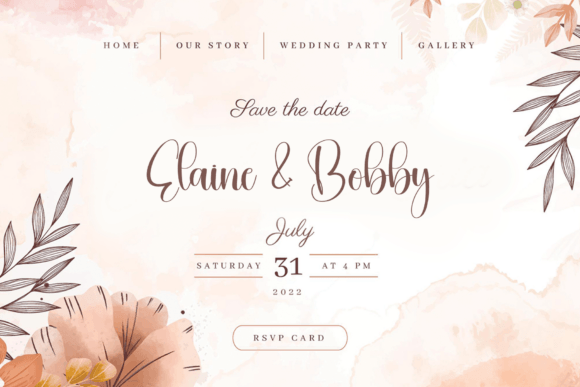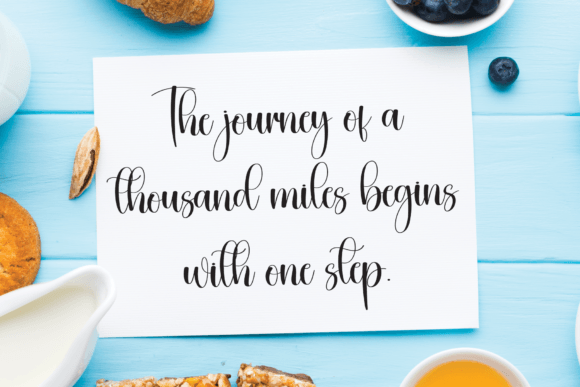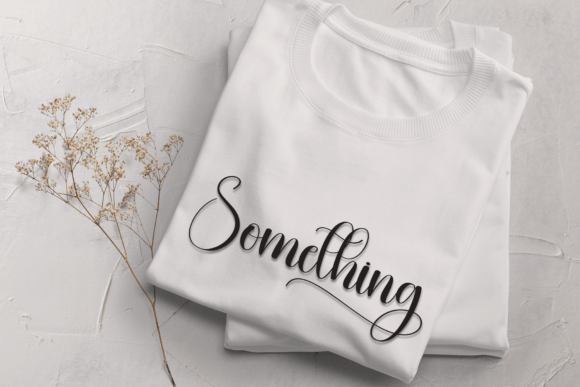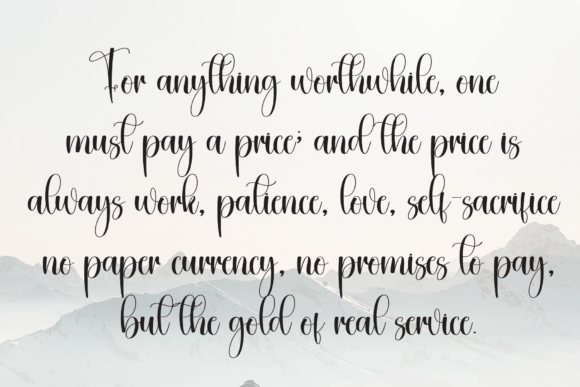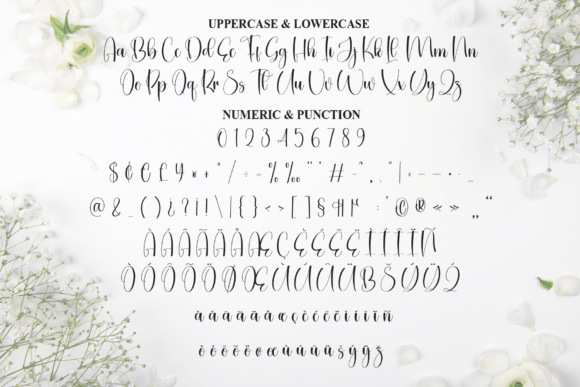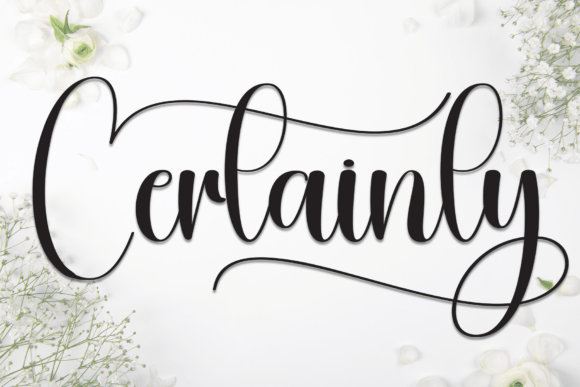
Introducing Certainly Font: Elevate Your Designs with Elegance and Sophistication
In the world of typography, few fonts manage to capture the essence of elegance and sophistication as beautifully as Certainly Font. This stunning script font, with its smooth, flowing curves and classic calligraphy style, is a perfect addition to any designer’s toolkit. Whether you’re creating cards, gift tags, invitations, or seasonal decorations, Certainly Font is sure to bring a touch of charm and refinement to your projects.
A Closer Look at Certainly Font
Certainly Font is a script font that embodies the classic calligraphy style, reminiscent of traditional copperplate engraving. Its smooth, flowing curves and delicate letterforms evoke a sense of nostalgia and romance, making it an ideal choice for designers looking to add a touch of elegance to their work. The font’s graceful letterforms are meticulously crafted to provide a beautiful, hand-crafted feel that is sure to impress.
One of the standout features of Certainly Font is its versatility. This beautiful font is perfect for a wide range of design applications, including:
- Cards: Add a touch of elegance to your greeting cards, whether it’s for a birthday, wedding, or holiday.
- Gift Tags: Create beautiful, personalized gift tags that are sure to make your presents stand out.
- Invitations: Make your invitations truly special with Certainly Font, perfect for weddings, baby showers, and other formal events.
- Seasonal Decorations: Bring warmth and joy to your seasonal decorations, whether it’s for Christmas, Halloween, or Easter.
Pairing Certainly Font with Winter-Themed Elements
One of the most striking aspects of Certainly Font is how beautifully it pairs with winter-themed elements. The font’s classic, elegant style complements snowflakes, holly, and other winter motifs perfectly, bringing a sense of warmth and joy to your designs. Whether you’re creating holiday cards, decorations, or gift tags, Certainly Font is the perfect choice.
Tips for Using Certainly Font in Your Designs
To get the most out of Certainly Font, here are a few tips to keep in mind:
- Keep it simple: Certainly Font is a elegant font, so it’s best to keep your design simple and understated.
- Experiment with colors: Try pairing Certainly Font with different colors, such as rich reds, emerald greens, and snowflake whites.
- Add embellishments: Consider adding embellishments, such as glitter or snowflakes, to give your design a touch of extra sparkle.
Why Designers and Crafters Love Certainly Font
Designers and crafters alike love Certainly Font for its unique combination of elegance and versatility. Here are just a few reasons why:
- Elegant style: Certainly Font’s classic, elegant style makes it perfect for a wide range of design applications.
- High-quality design: Certainly Font is meticulously crafted to provide a high-quality design that is sure to impress.
In conclusion, Certainly Font is a beautiful script font that is sure to elevate your designs with its elegance and sophistication. With its smooth, flowing curves and classic calligraphy style, this font is perfect for a wide range of design applications, from cards and gift tags to invitations and seasonal decorations. Whether you’re a designer or crafter, Certainly Font is a must-have addition to your toolkit.